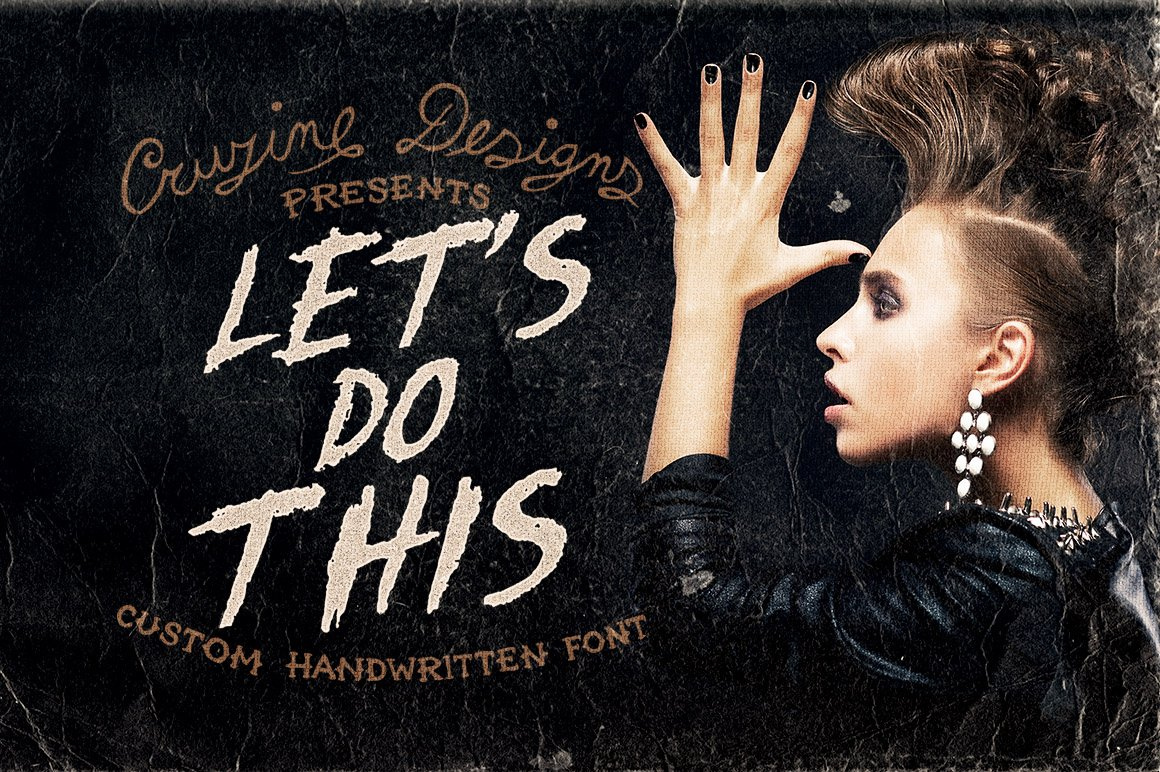
Let's Do This Custom Font
Let's Do This Custom Font is perfect for motivational fitness brands, energetic sports teams, inspiring coaching services, dynamic startup companies, empowering workshop materials, action-oriented marketing campaigns, enthusiastic event promotions, determined lifestyle brands, goal-crushing mobile apps, and high-energy entertainment venues.
Let's Do This Custom Font creates excitement because it embodies the unstoppable energy and motivational spirit of taking action with its bold letterforms and determination-inspired character design. The font's dynamic movement and energetic aesthetic instantly convey motivation and can-do attitude, making any brand appear inspiring and authentically action-oriented. Its carefully crafted motivational details and empowering character create an immediate sense of determination that captivates audiences seeking motivational experiences, goal achievement, and products that celebrate the transformative power of taking decisive action and pursuing dreams with unwavering determination.
The Let's Do This Custom Font family includes multiple weights and styles: Regular, Bold, Black, Ultra Black, Light, Medium, Italic, Condensed, Extended, and Action versions. Each variant maintains the font's signature motivational character while offering different levels of energetic styling and inspirational authenticity suitable for various fitness and motivational applications.
This empowering typeface brings the authentic spirit of motivational action into contemporary branding with remarkable energy and inspirational appeal. Let's Do This Custom Font Free Download provides fitness brands and motivational organizations with access to premium action-inspired typography that embodies the essence of determination and goal achievement. The font's energetic design and motivational authenticity make it ideal for businesses seeking to establish meaningful connections with action-oriented audiences who value personal growth, fitness excellence, and the transformative power of motivational mindset and determined action. Whether you're creating branding for fitness centers, designing materials for coaching services, developing promotional content for sports organizations, or producing marketing materials for motivational platforms, this font delivers the energetic atmosphere that resonates with audiences seeking genuine motivation, goal achievement, and the empowering confidence that comes from taking bold action toward their dreams. Its versatile design ensures outstanding performance across both dynamic printed materials and high-energy digital platforms while maintaining the character of authentic motivational typography. The font excels in applications requiring fitness credibility and motivational appeal. Fitness professionals appreciate its ability to convey genuine determination while remaining highly functional for various motivational communications and action-oriented promotional materials. The comprehensive character set includes motivational symbols and extensive international language support, making it perfect for global fitness brands and international motivational organizations seeking to communicate authentic determination, empowering action, and motivational excellence to diverse worldwide audiences who embrace personal growth, seek fitness achievement, and value the transformative power of genuine motivation that turns dreams into reality through consistent action, unwavering determination, and the unstoppable belief that anything is possible when you decide to take action.